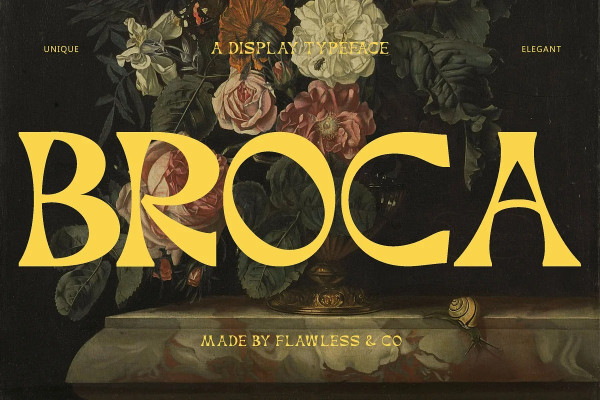
BROCA FONT
Broca Font – Modern Retrotypre Serif Font, our latest creation, modern serif with various alternates and ligatures, multilingual support, an updated blend of bohemian style, suitable for branding, business, logos, magazines, and others